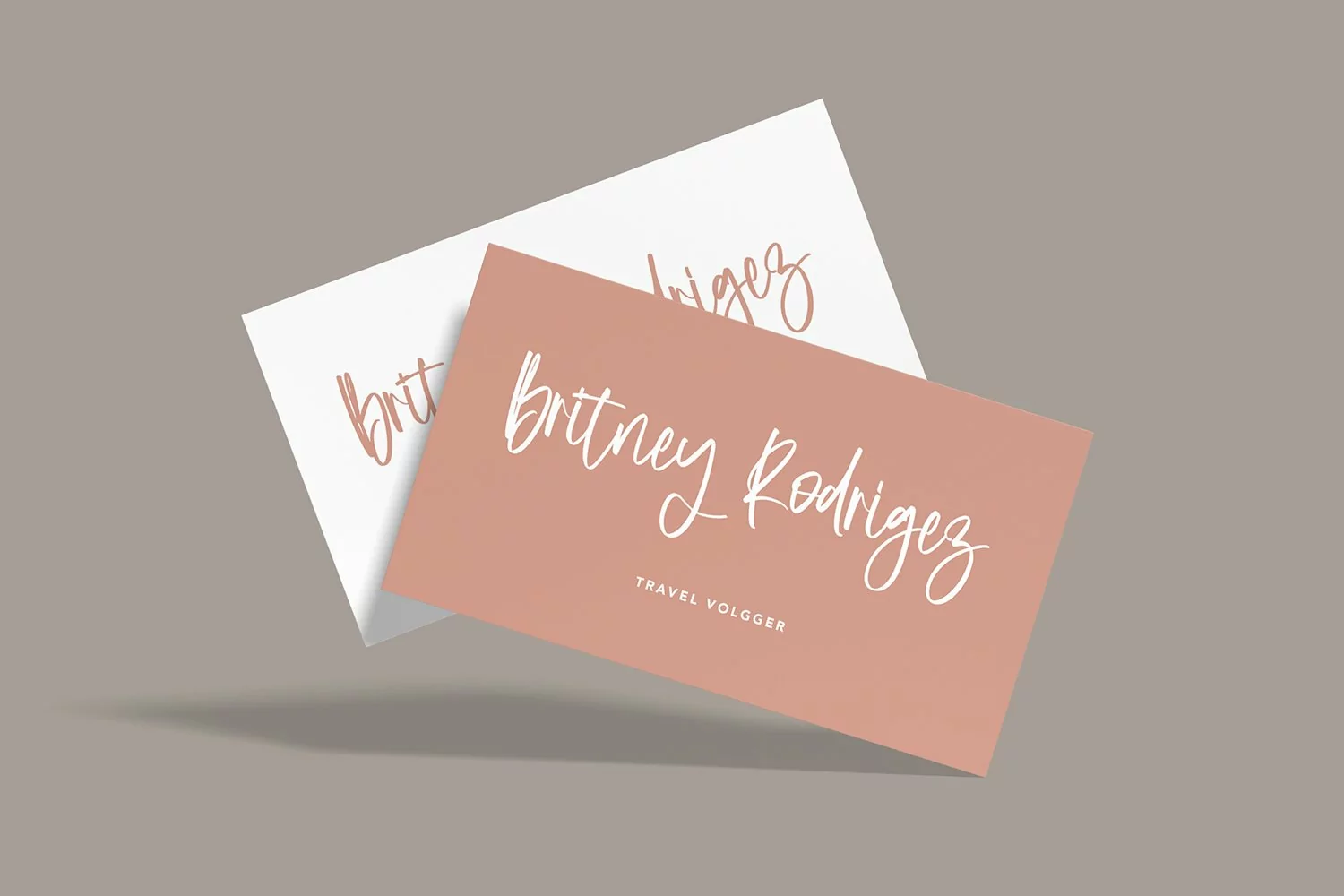
Softshell - Beauty Calligraphy Font that contain lowercase, uppercase, symbol, and also support multi language. There’s a lot ligatures in this font. This Font also comes with ligatures, alternates and many more. this font suitable for fashion, branding, catalog and other design what you want.